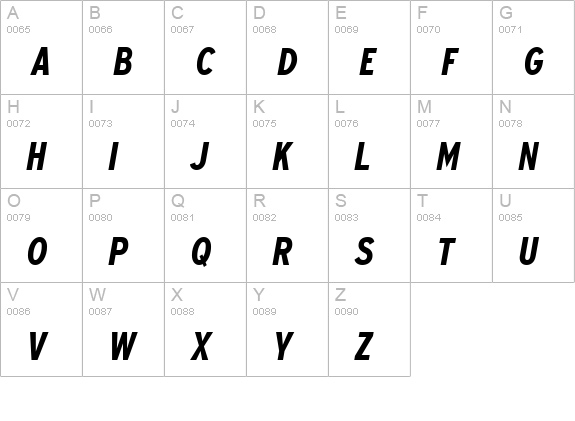
Expressway Cd Bold Italic Font Details
Expressway Cd Bold Italic is a strong, high-contrast, italic variant in the Expressway typeface family \xE2\x80\x94 well suited to headlines, attention-grabbing titles, and strong calls-to-action.